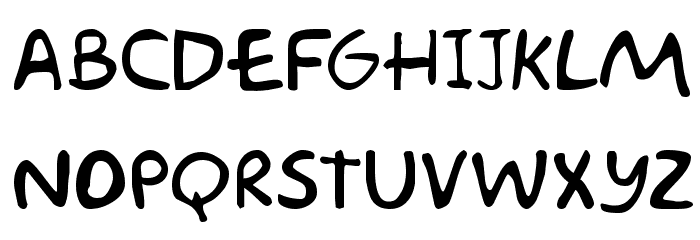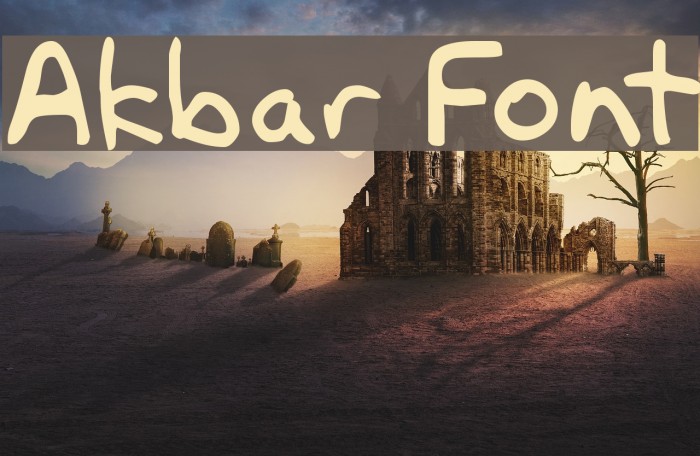
Akbar Font
This font features a playful and casual handwritten style, characterized by its rounded and slightly irregular letterforms. The strokes are bold and consistent, giving it a friendly and approachable appearance. The uppercase and lowercase letters maintain a uniform style, while the numerals and special characters complement the overall design. This font's informal nature makes it suitable for projects that require a personal touch or a sense of whimsy.
A playful, handwritten font with bold, rounded strokes.
- Proposed Projects: Ideal for children's books, greeting cards, casual invitations, and playful branding.
- Category: Handwritten
- Overall Style: Casual, Playful
- Use Case: Headlines, Logos, Informal Text